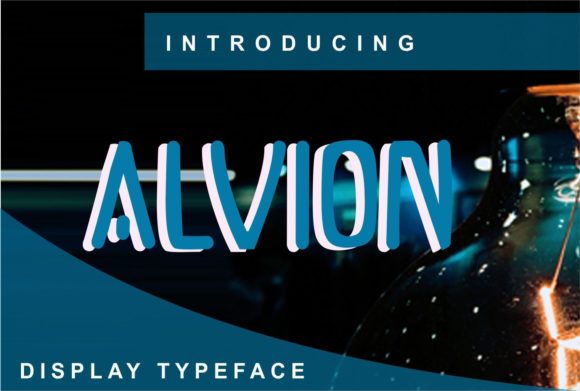
The Designer’s Delight: Exploring the Versatility of Alvion Font
I’ll never forget the time I was working on a project for a client who needed a font that was both clean and adaptable. I had spent hours scouring the internet for the perfect one, but nothing seemed quite right. That was until I stumbled upon Alvion Font. It was like a breath of fresh air – sleek, modern, and incredibly versatile. In this article, I’ll share my experience with Alvion Font, its features, and how to make the most of it in your designs.
An Honest Review of Alvion Font
What I Love About Alvion Font
- ✨ Clean and Adaptable: Alvion Font is perfect for any design project, from posters and flyers to prints and digital media.
- ✅ Easy to Read: The font’s clean lines and simple design make it easy to read, even at smaller sizes.
- 💡 Endless Possibilities: With its wide range of OpenType features and glyphs, Alvion Font offers endless possibilities for creative expression.
While Alvion Font is an excellent choice for many design projects, there are a few things to keep in mind:
- 🤔 Limited Serif Options: Alvion Font is a sans-serif font, which may not be suitable for projects that require a more traditional or formal look.
- ⚠️ Not Suitable for Body Text: While Alvion Font is great for headlines and titles, it may not be the best choice for body text due to its clean and simple design.
The Story Behind Alvion Font
Alvion Font was designed with the goal of creating a clean and adaptable font that could be used for a wide range of design projects. The designer, inspired by modern typography and minimalist design, aimed to create a font that was both elegant and easy to read.
| Font Name | Alvion Font |
| Author | Letteria_studio |
Q: What is Alvion Font?
A: Alvion Font is a clean and adaptable display font designed for use in a variety of design projects, including posters, flyers, and prints.
Q: What are the benefits of using Alvion Font?
A: The benefits of using Alvion Font include its clean and adaptable design, ease of reading, and endless possibilities for creative expression.